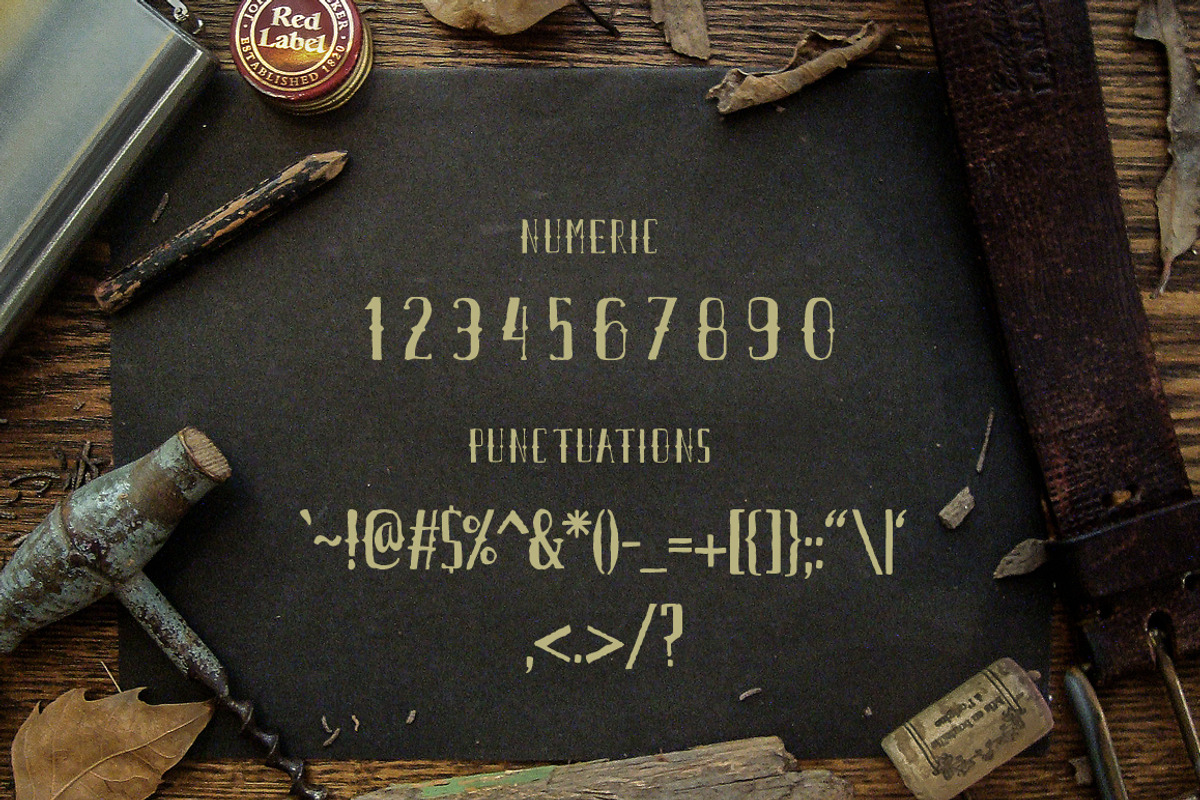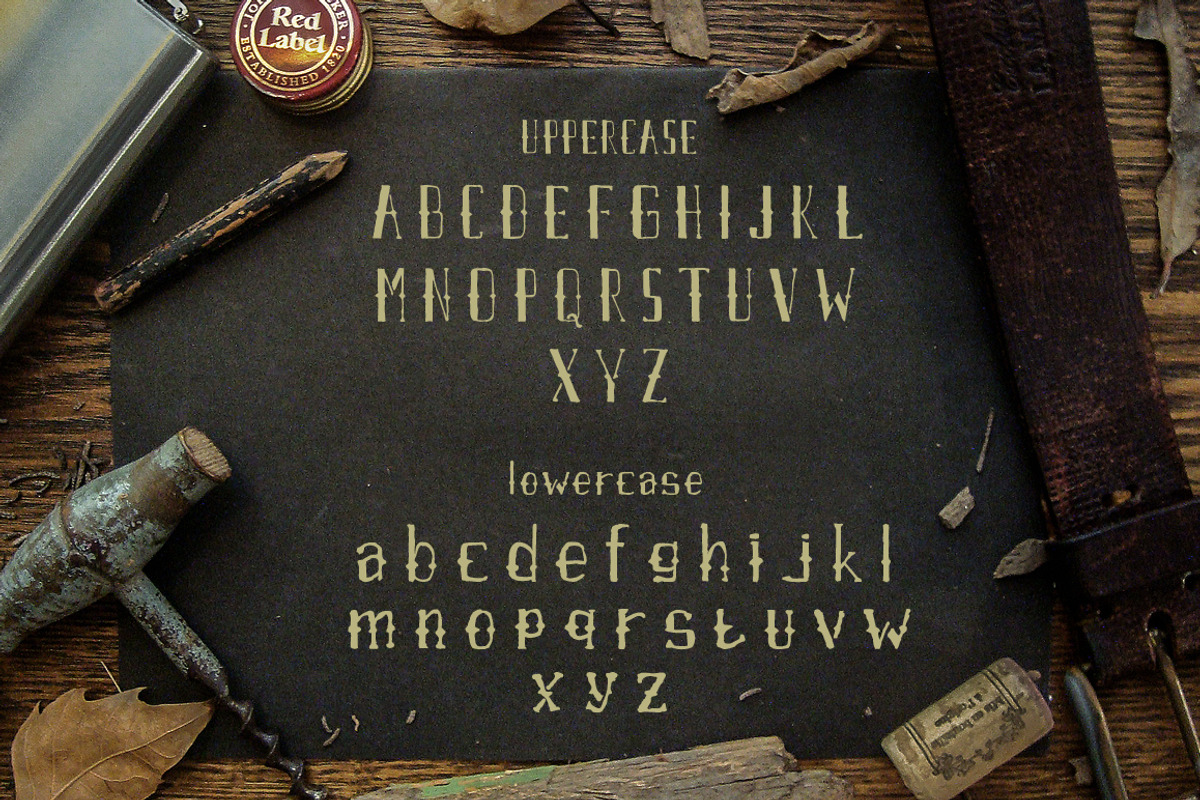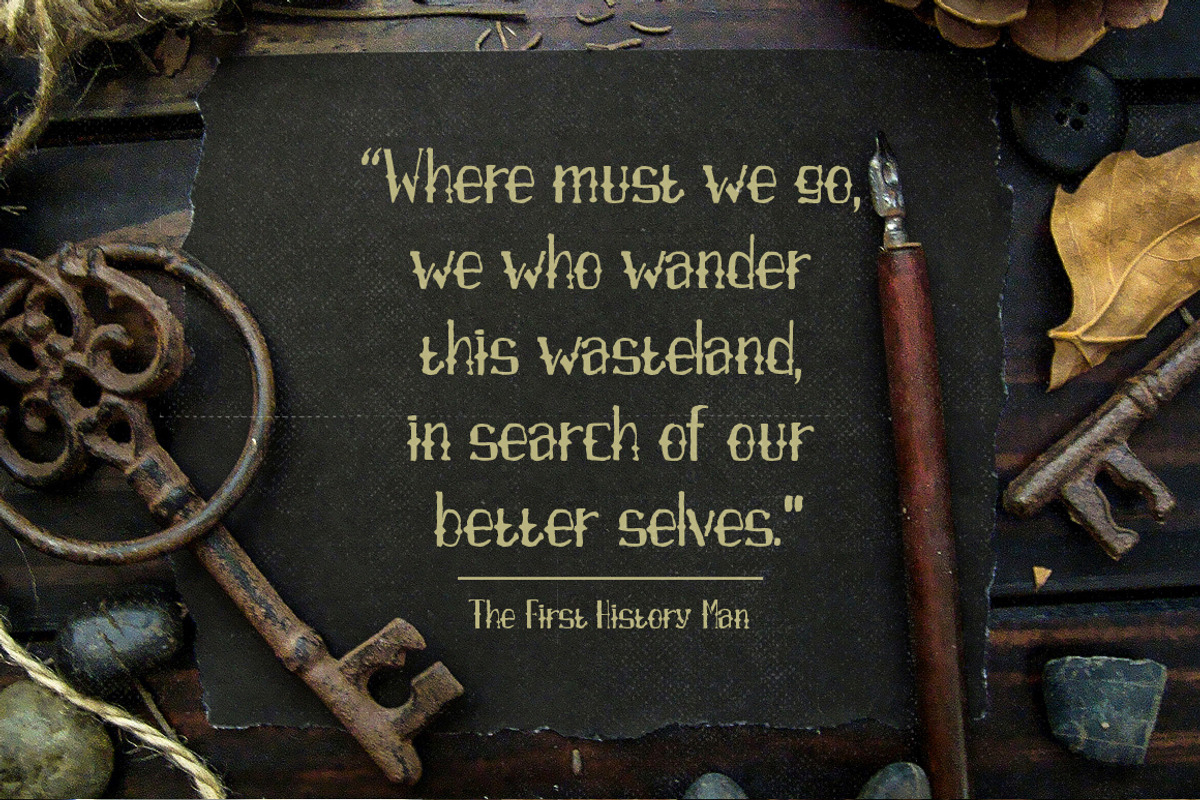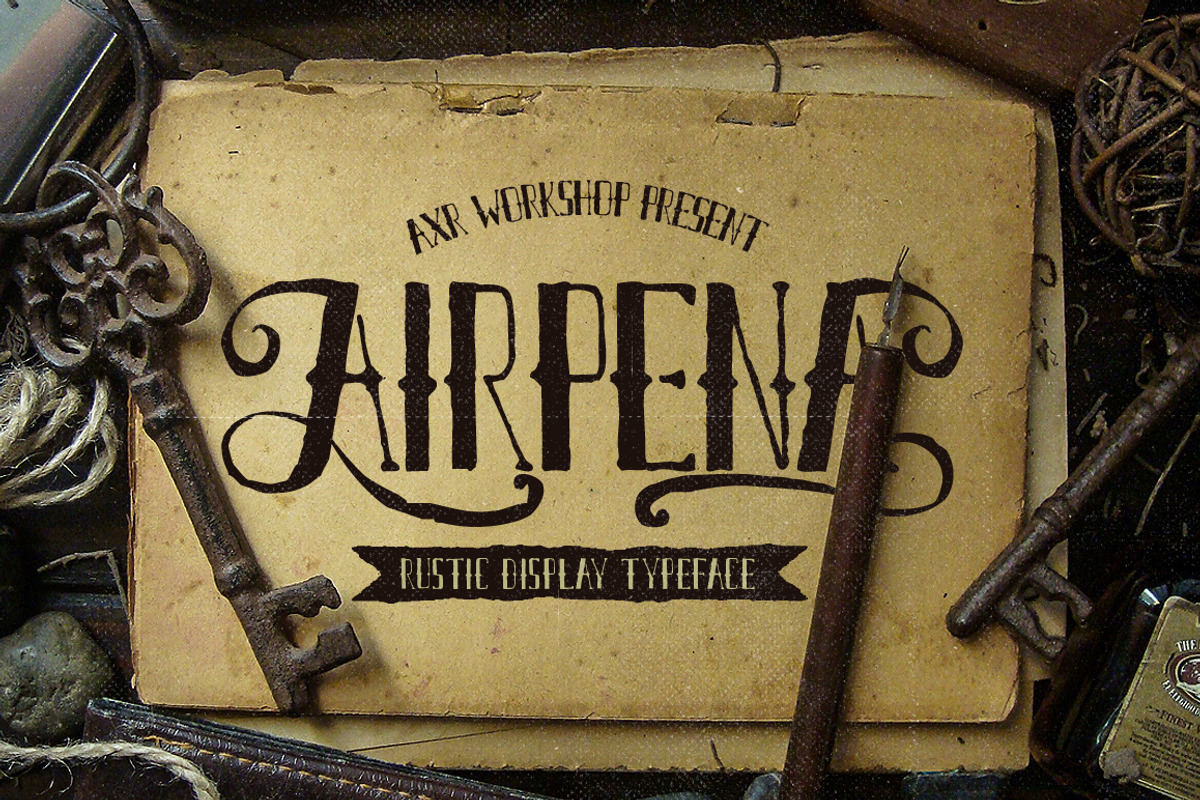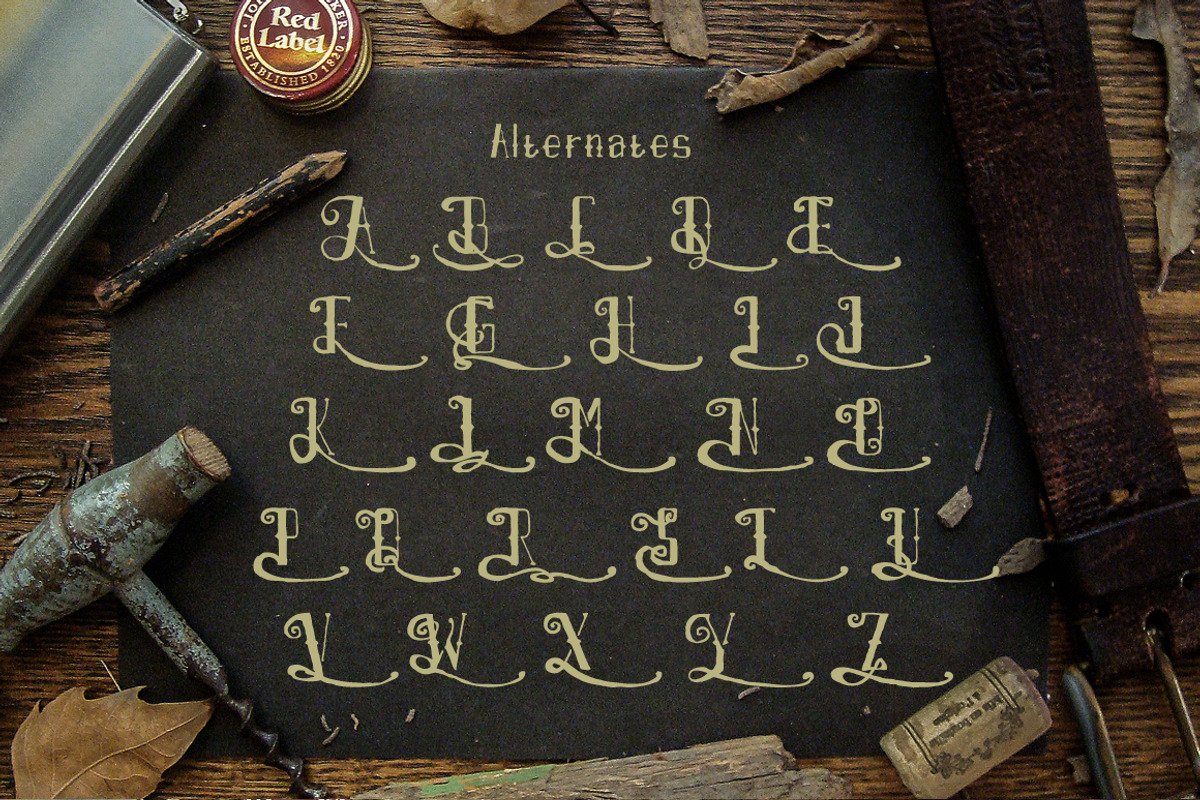
Airpena Rustic Font
Airpena
Inspired from rusted and distressed handdrawn lettering used on retro motorcycle. AIRPENA is represent the retro rustic style of it.
It comes with full alphabet alternates for Uppercase (Front & end) & Lowercase (end) its give you an exciting experience to use it in titling and or writing.